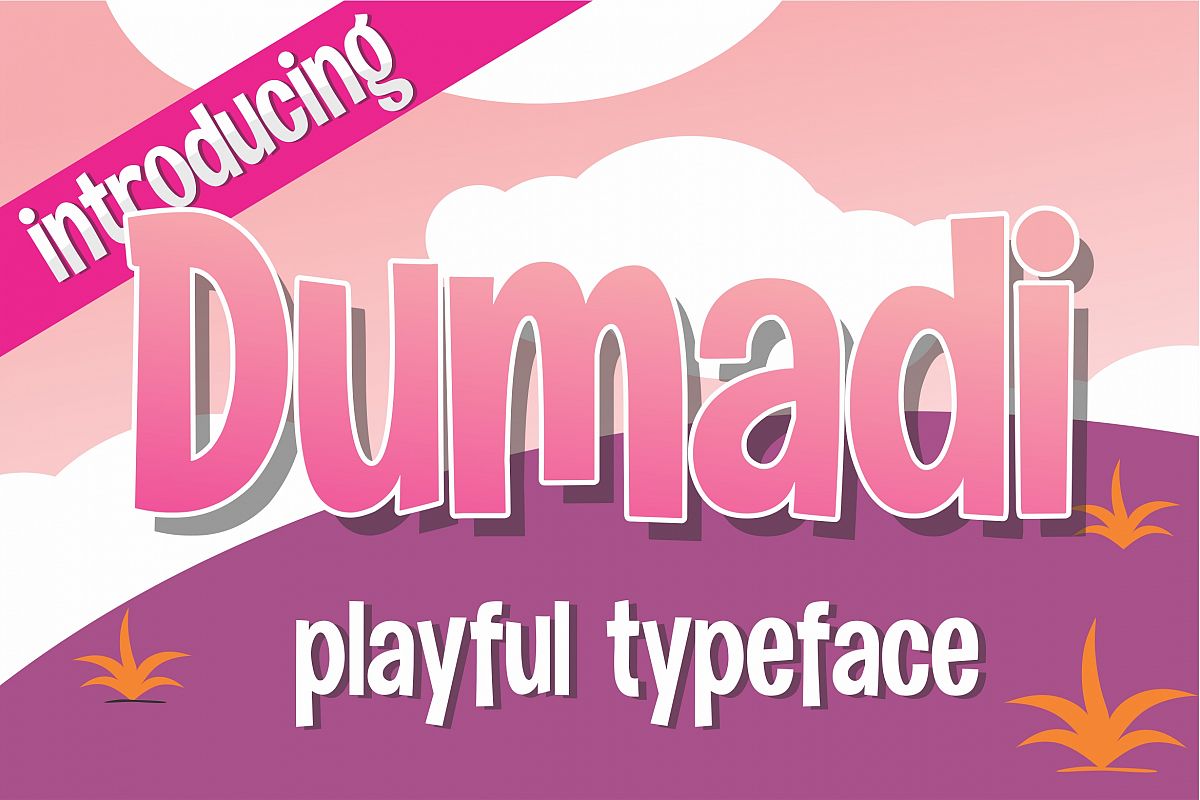
Dumadi
Dumadi font -playful typeface- You can use it for a contemporary, formal design, but a little funny to add a colorful atmosphere to the design of your product.